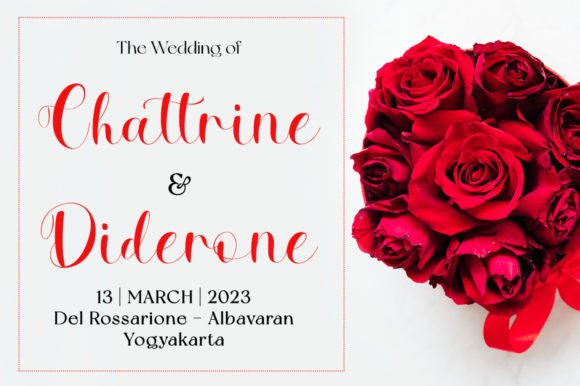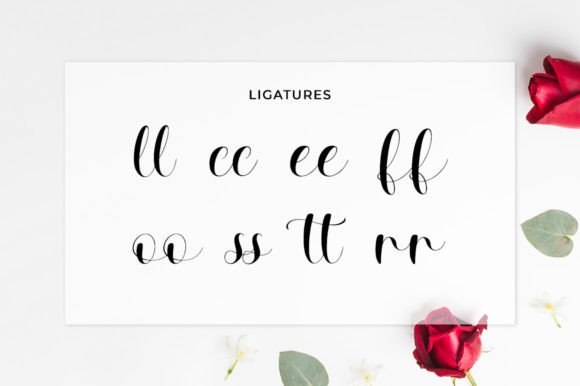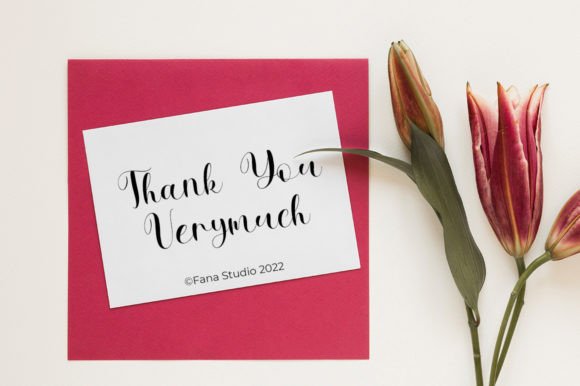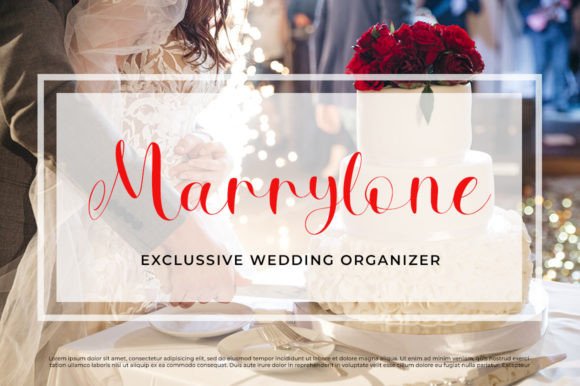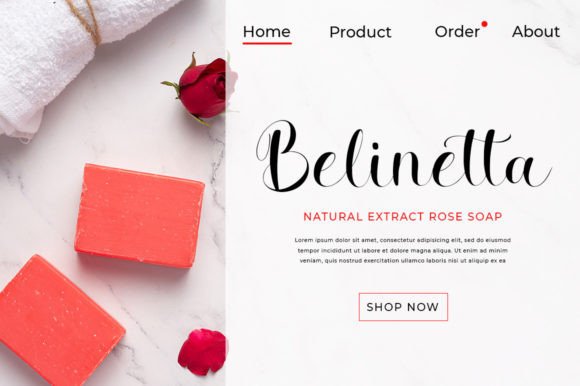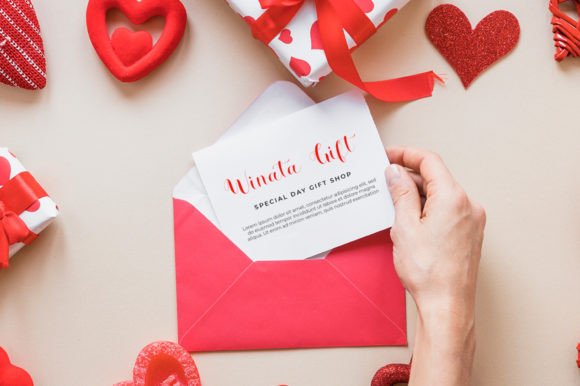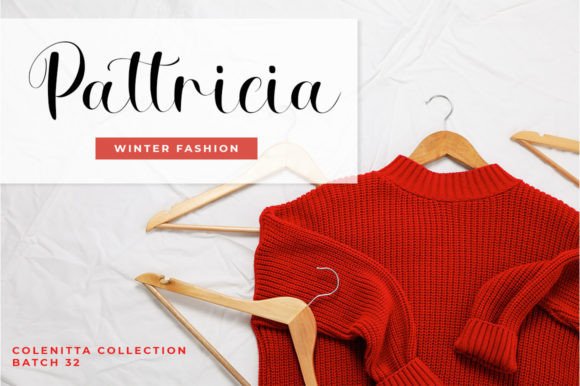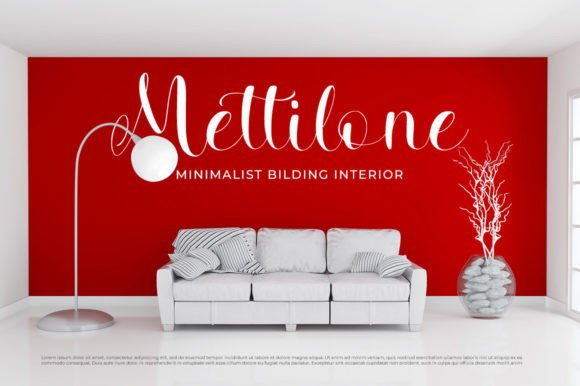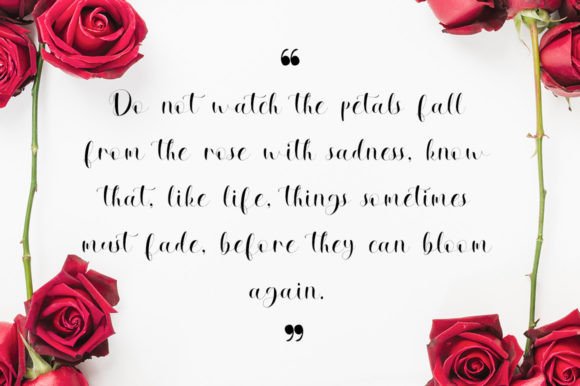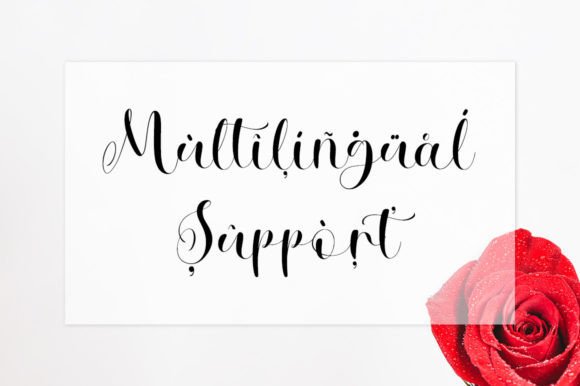
Reylineta Font
A Stylish Handwritten Script Font
Reylineta Font is a stylish handwritten script typeface that offers an elegant, classy, and modern look for your creative projects. This beautiful script font is designed to add a personal touch to your latest art project, whether you’re creating logos, branding, or wedding invitations. Its gorgeous typographic design ensures that your designs stand out with sophistication and grace. The Reylineta Font is ideal for adding a touch of elegance to any project, from product packaging to special event invitations.
Perfect for Logos and Branding Projects
For logos and branding, the Reylineta Font brings a unique, modern style to your business identity. Whether you’re designing a luxury brand logo, a personal brand, or corporate identity, this font’s elegant script adds a refined and memorable touch. Its stylized handwriting helps convey creativity and professionalism, making it perfect for companies in the fashion, lifestyle, or creative industries. The Reylineta Font ensures your brand materials stand out, leaving a lasting impression on your clients and audience.
Ideal for Wedding Invitations and Special Events
For wedding invitations and special event stationery, the Reylineta Font is an ideal choice. Whether you’re designing RSVP cards, thank-you notes, or event programs, this font adds a romantic and timeless feel to your designs. Its elegant strokes and delicate style give your wedding materials an authentic and personalized touch, setting the perfect tone for your special day. The Reylineta Font will help you create memorable invitations and event materials that feel both luxurious and personal.
Great for Social Media and Digital Content
For social media posts and digital content, the Reylineta Font ensures your designs have an elegant, charming appeal. Whether you’re creating Instagram graphics, Pinterest pins, or Facebook posts, this font adds a unique, handwritten style to your digital designs. Perfect for quote graphics, event promotions, or product advertisements, the Reylineta Font helps your content stand out, capturing attention while maintaining a classy, professional vibe. Its personalized touch gives your social media posts a distinctive and high-end feel.
Ideal for Product Packaging and Labels
For product packaging and labels, the Reylineta Font offers a stylish and creative solution. Whether you’re designing product labels, brand packaging, or promotional materials, this font adds a luxurious, authentic feel to your products. Its elegant script makes it perfect for products in the beauty, fashion, or artisan industries, where personalization and classiness are key. The Reylineta Font ensures your packaging feels premium, making your product designs more memorable and appealing.
Great for Photography and Watermarks
For photography and watermarks, the Reylineta Font provides a timeless, elegant style that complements your work. Whether you’re adding a watermark to your photographs, art prints, or digital artwork, this font adds a personalized and unique touch. Its elegant strokes ensure your watermarks feel artistic and refined, allowing your photos to retain their artistic integrity while branding them with a stylish signature. The Reylineta Font makes your watermarks stand out without distracting from the beauty of your images.
Versatile, Legible, and Elegant
Despite its elegant handwritten design, the Reylineta Font remains legible and easy to use. The font’s consistent letterforms and well-spaced characters ensure that your text is clear and readable, even for longer passages or smaller sizes. Whether you’re using it for headlines, captions, or body text, the Reylineta Font strikes the perfect balance between creativity and readability, making it suitable for a wide range of design applications, from print to digital media.
The Reylineta Font is easy to use and integrates smoothly into most design software. Whether you’re working on logos, wedding invitations, branding materials, or social media content, this font ensures your designs look polished and professional while maintaining a personalized touch. Its versatility makes it perfect for both print and digital media, giving you the flexibility to use it across various projects with ease.
Add Elegance and Personalization to Your Designs with Reylineta Font
If you’re looking for an elegant, classy handwritten font that adds a personalized, modern touch to your designs, the Reylineta Font is the perfect choice. Whether you’re designing wedding invitations, logos, product packaging, or social media posts, this font helps you create memorable, high-end designs that stand out. Let the Reylineta Font add a timeless, personal touch to your projects and leave a lasting impression.